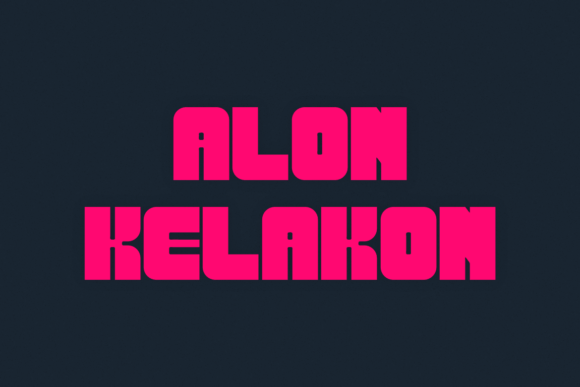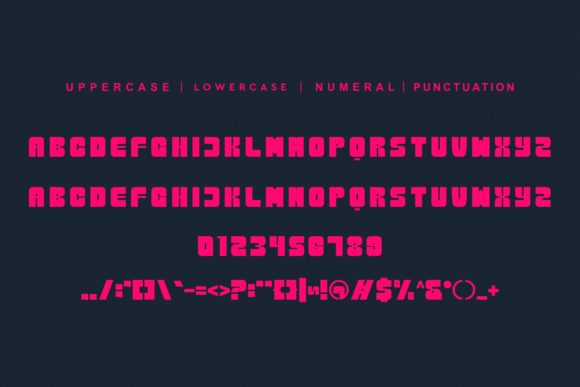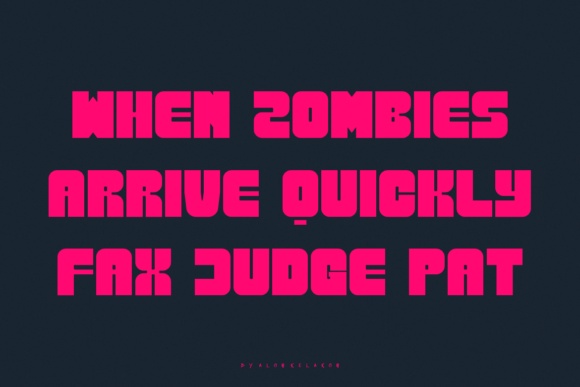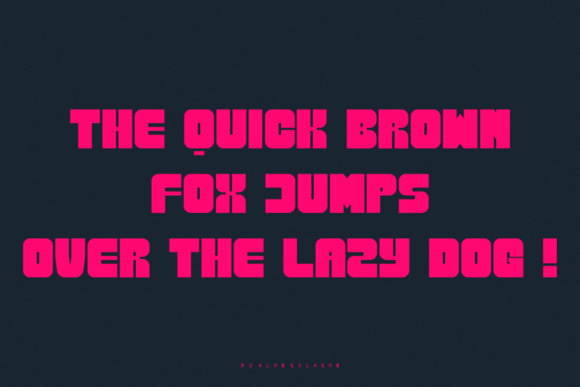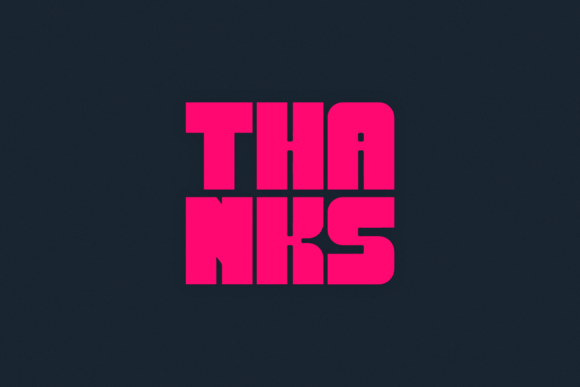
Introduction to Ohsquz Font
Have you ever found yourself in the middle of a creative project, struggling to find the perfect font to bring your vision to life? We’ve all been there, staring at a blank page, desperately searching for that one font that will make our design truly shine. But what if we told you that we’ve discovered a game-changing font that’s about to take your creative projects to the next level?
Meet the Ohsquz Font, a masterfully designed high-quality font that’s sure to become a true favorite among designers. This free download is a treasure trove of creative possibilities, offering a transparent background that allows you to layer and manipulate your design with ease. Whether you’re working on a branding project, a website, or any other creative endeavor, the Ohsquz Font is an invaluable design resource that’s sure to elevate your work.
Key Features of Ohsquz Font
- High-quality design: The Ohsquz Font is crafted with precision and attention to detail, making it an ideal choice for creative projects.
- Transparent background: The Ohsquz Font features a transparent background, allowing for seamless integration with any design element.
- Unique characteristics: The Ohsquz Font features a unique blend of modern and vintage elements, making it perfect for designers looking to add a touch of personality to their creative projects.
- Design resource: This font is a valuable addition to any designer’s toolkit, offering endless possibilities for creative expression and design experimentation.
Honest Review: Ohsquz Font
As a designer, I’m always on the lookout for high-quality design resources that can elevate my creative projects. The Ohsquz Font has caught my attention with its unique and modern aesthetic.
What works well about the Ohsquz Font is its versatility. The font comes in a variety of weights, from light to bold, making it suitable for a range of design projects. The transparent background feature allows for seamless integration with any design element, giving me the freedom to create a cohesive look.
- ✨ Unique and modern aesthetic
- ✨ Versatile with multiple weights
- ✨ Transparent background feature
However, there are some limitations to consider. The font may not be suitable for projects requiring a more traditional or classic look. Additionally, the free download version may have some limitations compared to the paid version.
Overall, I’m impressed with the Ohsquz Font as a design resource. Its high quality and creative possibilities make it a valuable addition to my design arsenal. Whether you’re working on a personal project or a commercial client, the Ohsquz Font is definitely worth considering.
- May not be suitable for traditional or classic designs
The Ohsquz Font is a high-quality, free download design resource perfect for any creative project. This versatile font features a transparent background, making it ideal for use in a variety of applications.
Use the Ohsquz Font to add a touch of elegance to your designs. Experiment with different font sizes and colors to create a unique look.
Combine the Ohsquz Font with other design elements to create a visually appealing design.
The Ohsquz Font is perfect for:
1. Creating invitations and greeting cards.
2. Designing logos and branding materials.